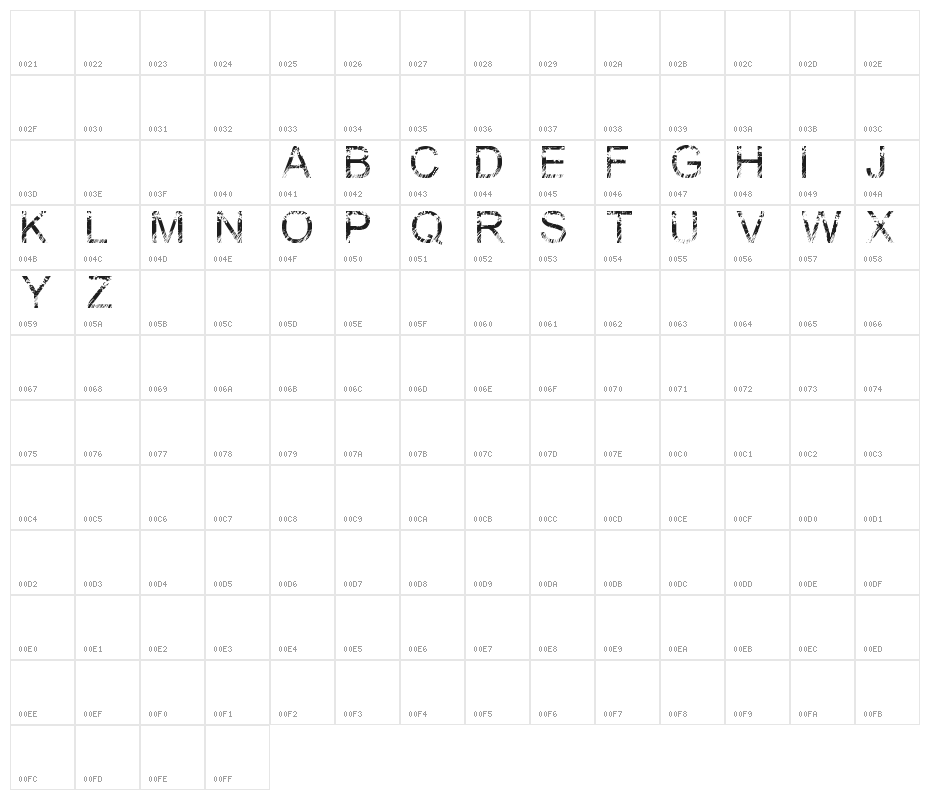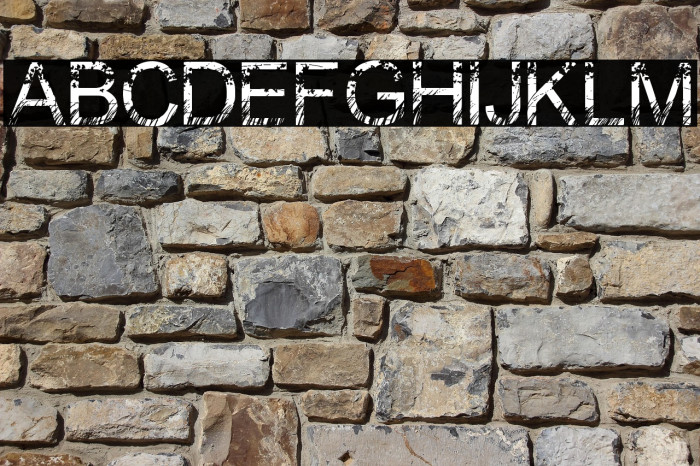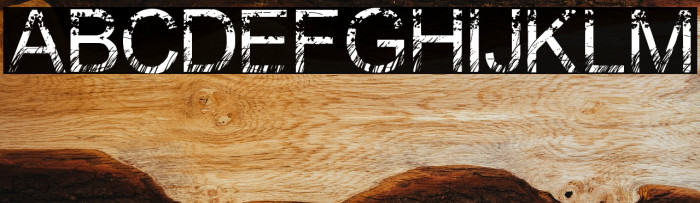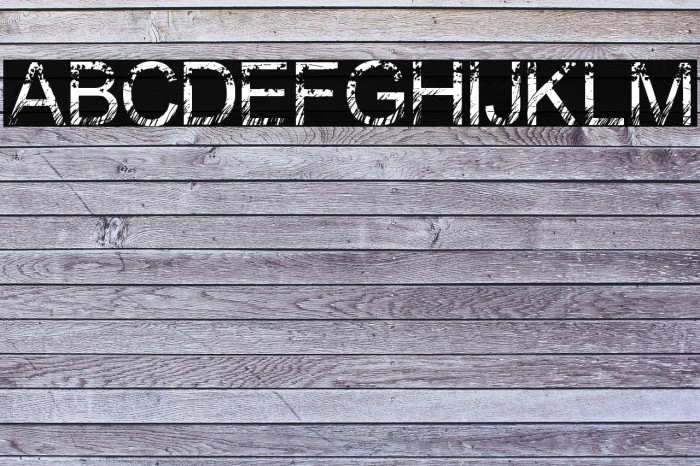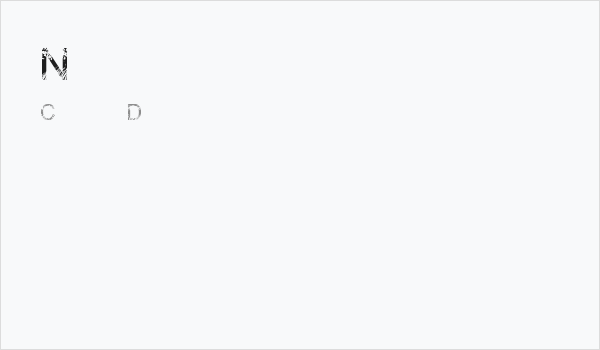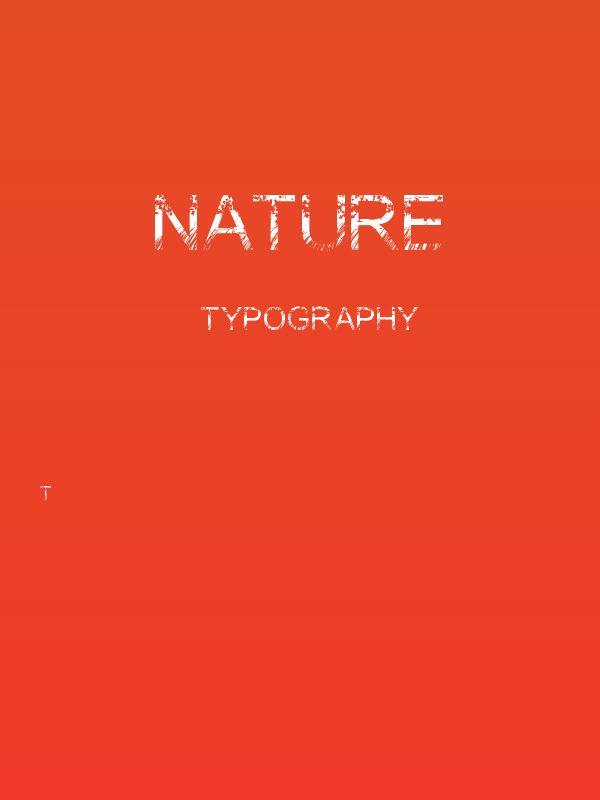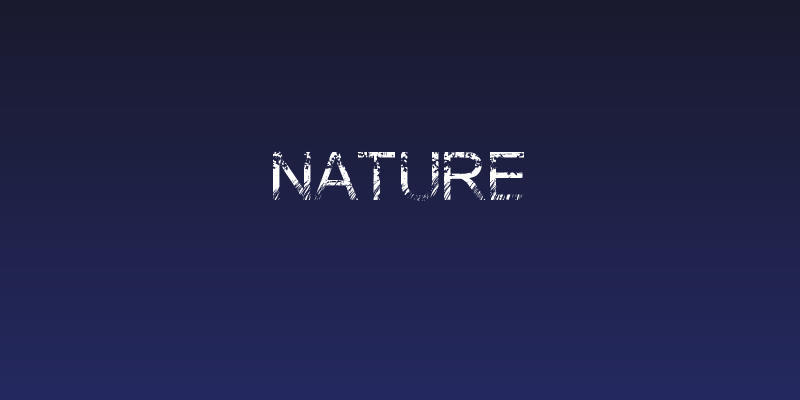
Nature Font
Nature Description
This font features a unique, textured design that mimics the appearance of natural elements, giving it a rustic and organic feel. The uppercase letters are bold and prominent, with a distressed pattern that adds character and depth. The strokes are uneven, creating a dynamic and lively appearance. This font is ideal for projects that aim to convey a sense of nature, ruggedness, or authenticity. Its distinctive style makes it suitable for creative and artistic endeavors, where a touch of the outdoors or a handcrafted look is desired. The font's design is both eye-catching and versatile, making it a great choice for various applications.
| Overall Style | Rustic, Organic, Textured |
| Proposed Projects | Ideal for eco-friendly branding, outdoor event posters, rustic-themed invitations, and artistic projects. |